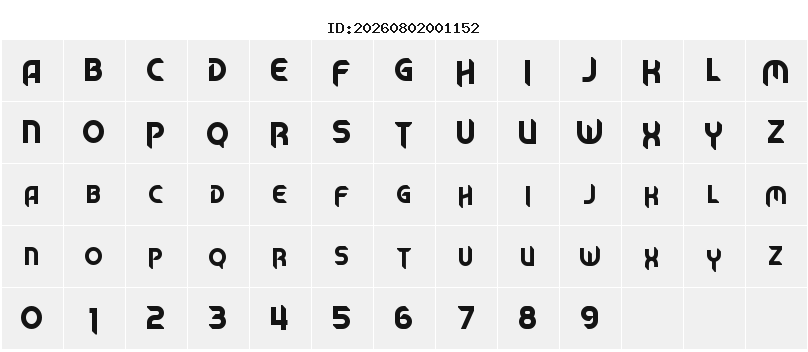
• Font Name: Mech Tech
• Full Font Name: Mech Tech Bold
• Designer: Neale Davidson
• Manufacturer: Pixel Sagas
About Mech Tech.otf
Mech Tech.otf is a modern, elegant sans-serif font designed for ultimate readability and visual harmony. Perfect for branding, headlines, web design, and print materials.